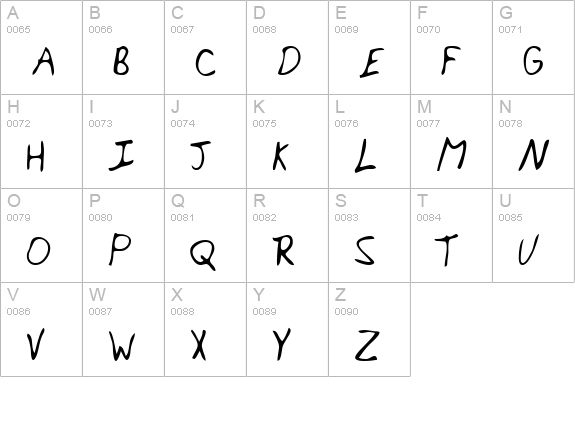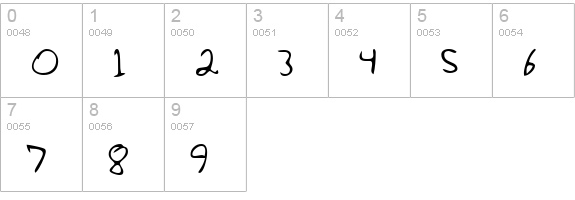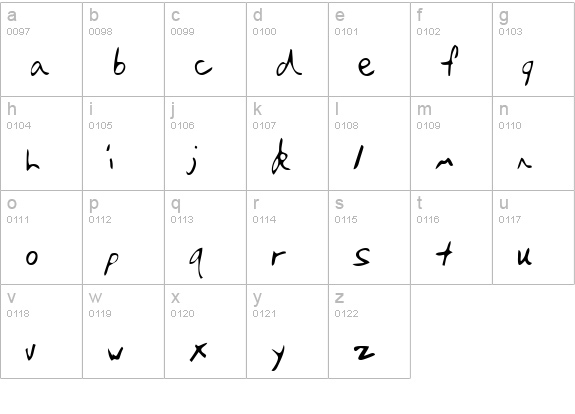
DarinsHand Regular Font Details
DarinsHand Regular is the standard, neutral variant in the DarinsHand typeface family \xE2\x80\x94 well suited to general body text, paragraphs, and standard typographic work.
DarinsHand Regular font is a charming and versatile typeface that exudes a delightful handwritten feel. With its smooth curves and elegant strokes, this font is perfect for adding a personal touch to your designs. Whether you are creating invitations, greeting cards, or branding materials, DarinsHand Regular will bring a warm and inviting vibe to your projects. What makes DarinsHand Regular even more appealing is that it is available for free download at FontsMarket.com. This means you can easily access this beautiful font without any cost, making it a valuable addition to your font library. Don't miss out on the opportunity to enhance your designs with the graceful and stylish DarinsHand Regular font today!